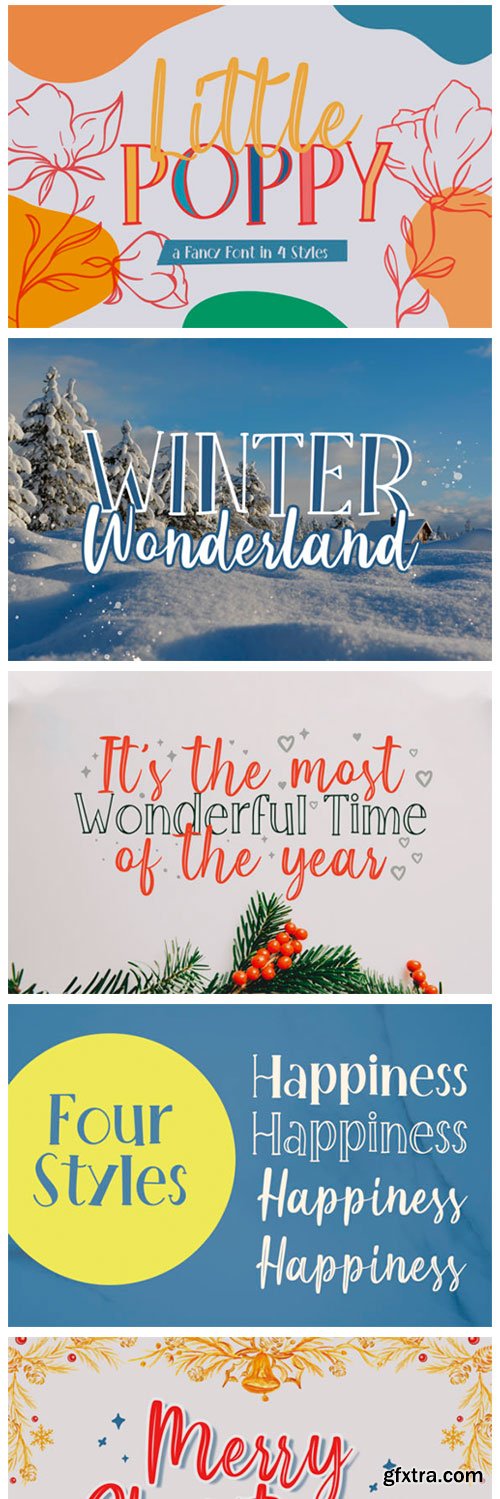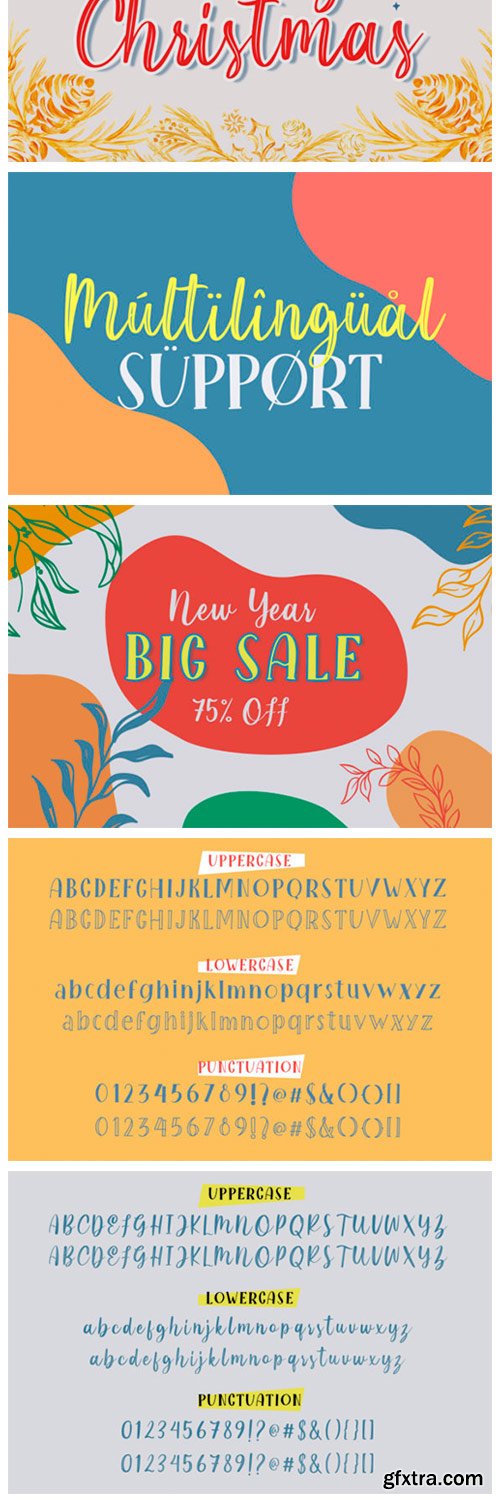
Little Poppy Font
Little Poppy is a fun, joyful and cartoon like duo font (serif and script). Add this font to your creative ideas and notice how it will make them stand out!